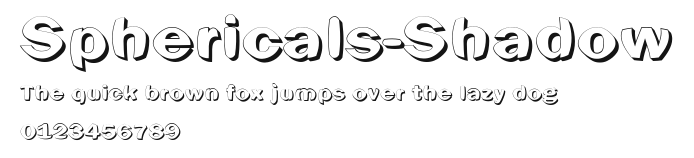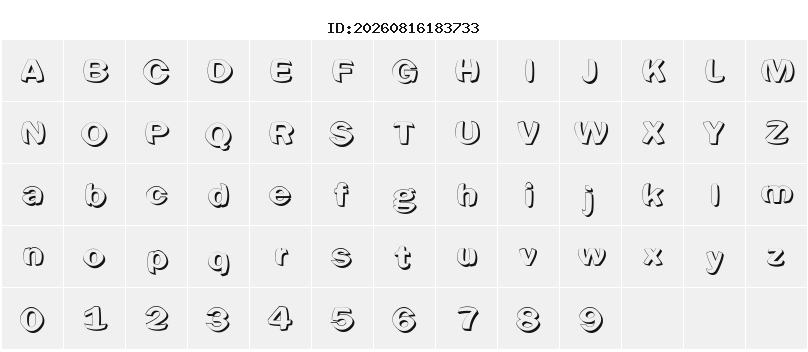
Sphericals-Shadow Preview
• Font Name: Sphericals-Shadow
• Font ID: TheFontFarm: Sphericals-Shadow : 1999
• Full Font Name: Sphericals-Shadow
• PostScript Name: Sphericals-Shadow
• Character Count: 247
• Designer: George Herbert Hirst
About Sphericals-Shadow.ttf
Sphericals-Shadow.ttf is a modern, elegant sans-serif font designed for ultimate readability and visual harmony. Perfect for branding, headlines, web design, and print materials.